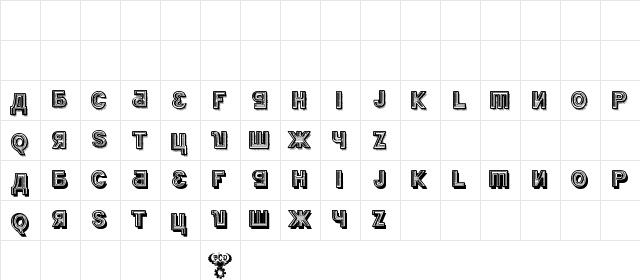
Kremlin Minister Black 3D Bold
Design Context for Kremlin Minister Black 3D Typeface
Kremlin Minister Black 3D is a composed and adaptable typeface that performs quietly and consistently across a wide range of design contexts. Its bold stroke weight gives it real presence on the page.